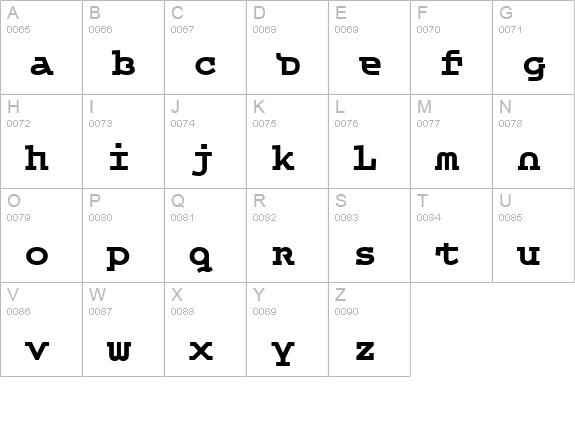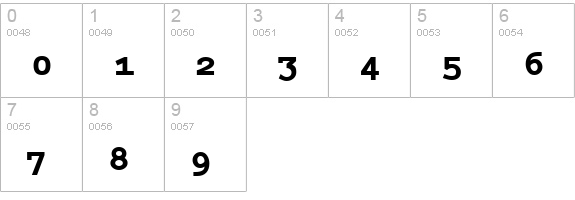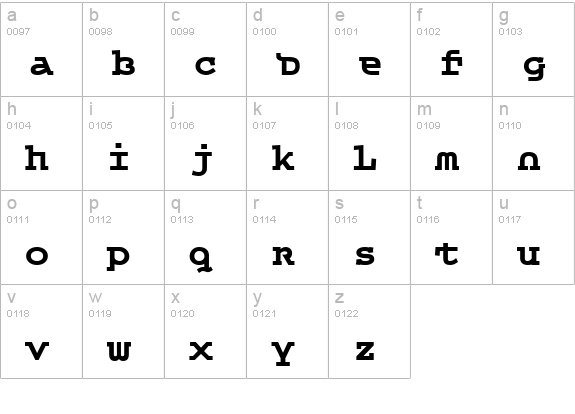
Introducing Queer TheoryBlack font, a bold and striking typeface that exudes confidence and modernity. With its sleek lines and unique design, this font is perfect for making a statement in any project. The Queer TheoryBlack font is not only visually appealing but also carries a deeper meaning, reflecting the spirit of inclusivity and diversity. Its edgy yet elegant appearance makes it a versatile choice for various design applications. This font is freely available to download at FontsMarket.com, allowing you to unleash your creativity without any limitations. Whether you're working on branding, editorial design, or any other creative project, Queer TheoryBlack font will add a touch of sophistication and individuality. Stand out from the crowd and express yourself freely with this captivating typeface.